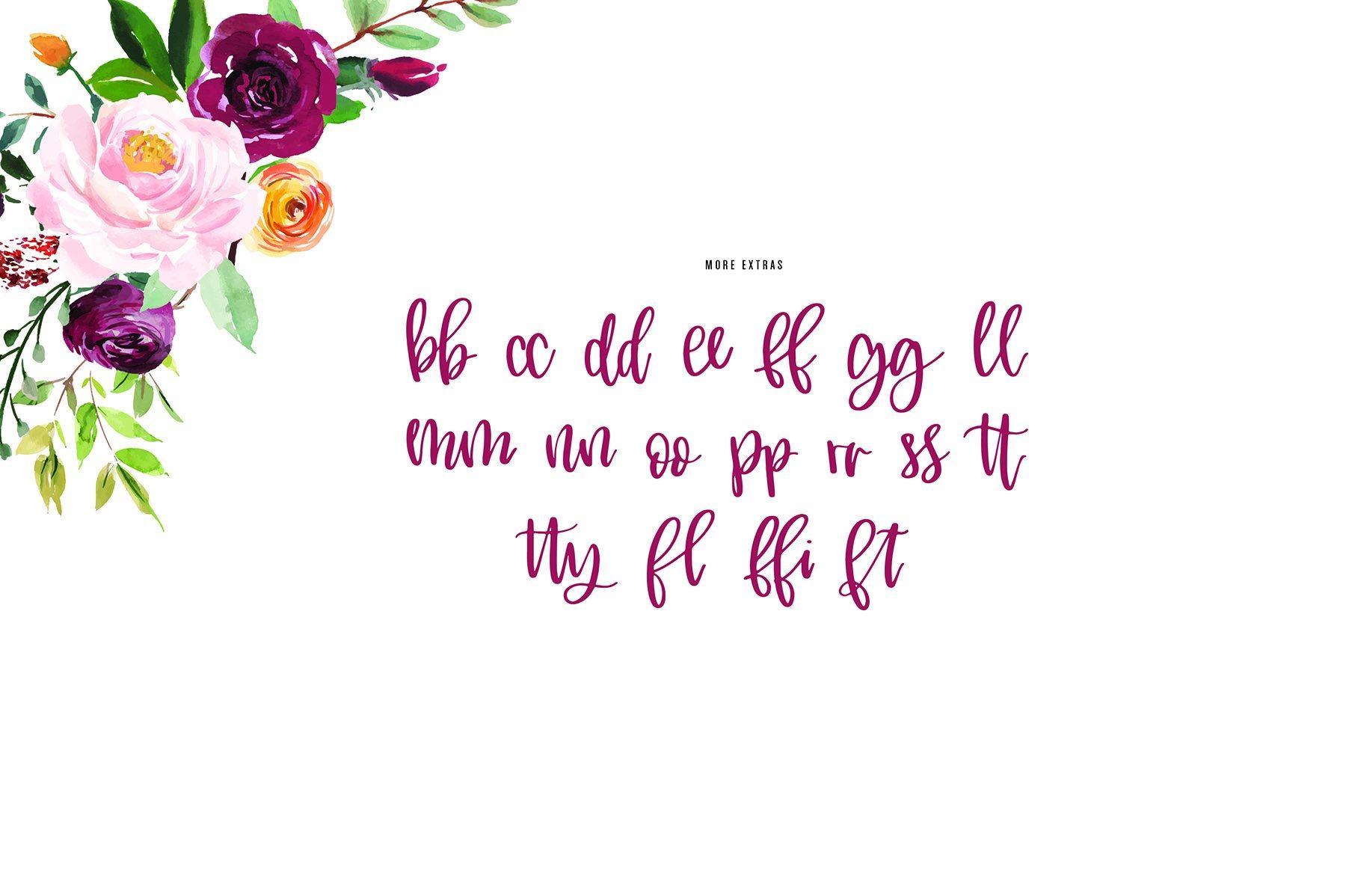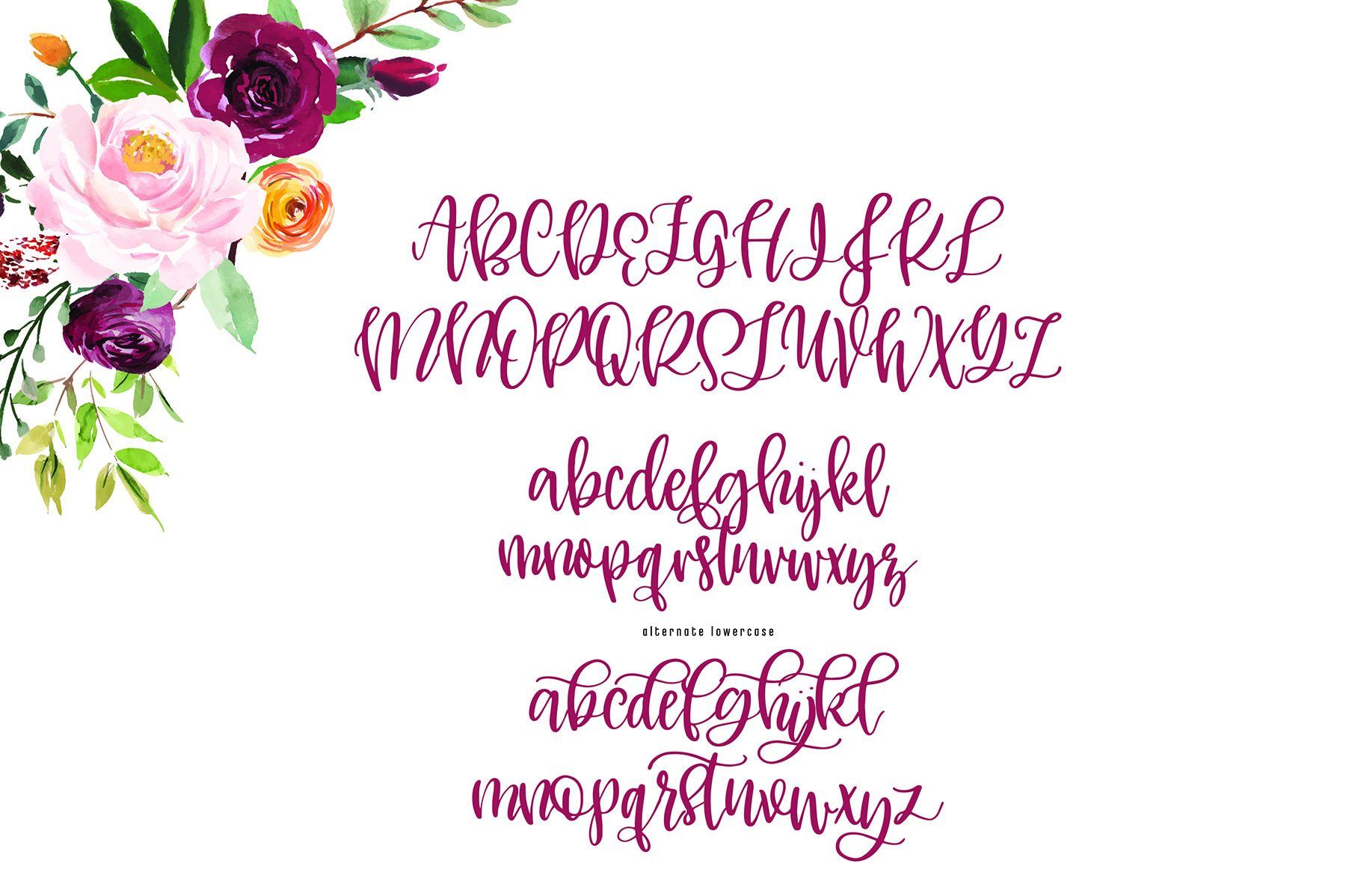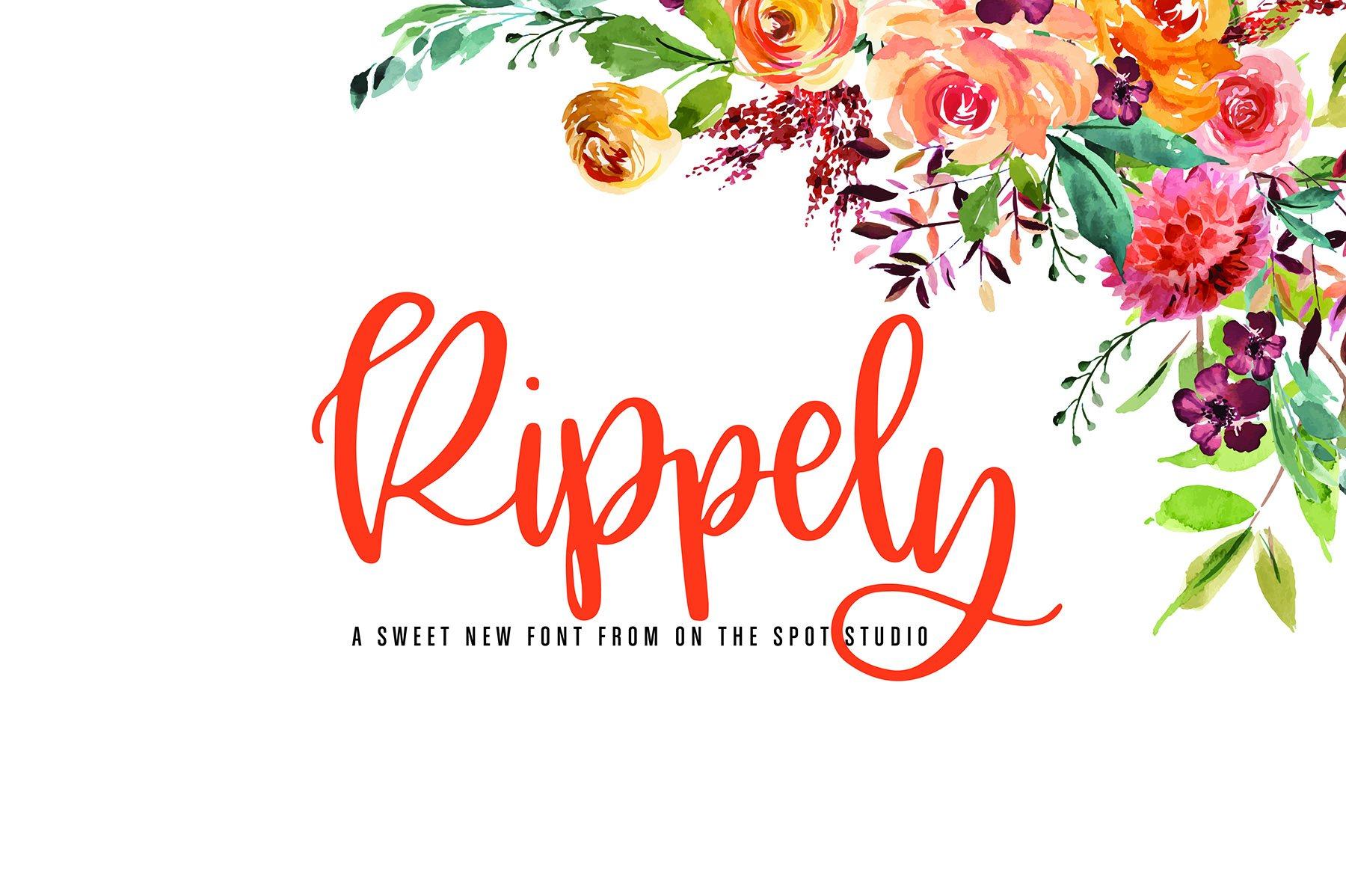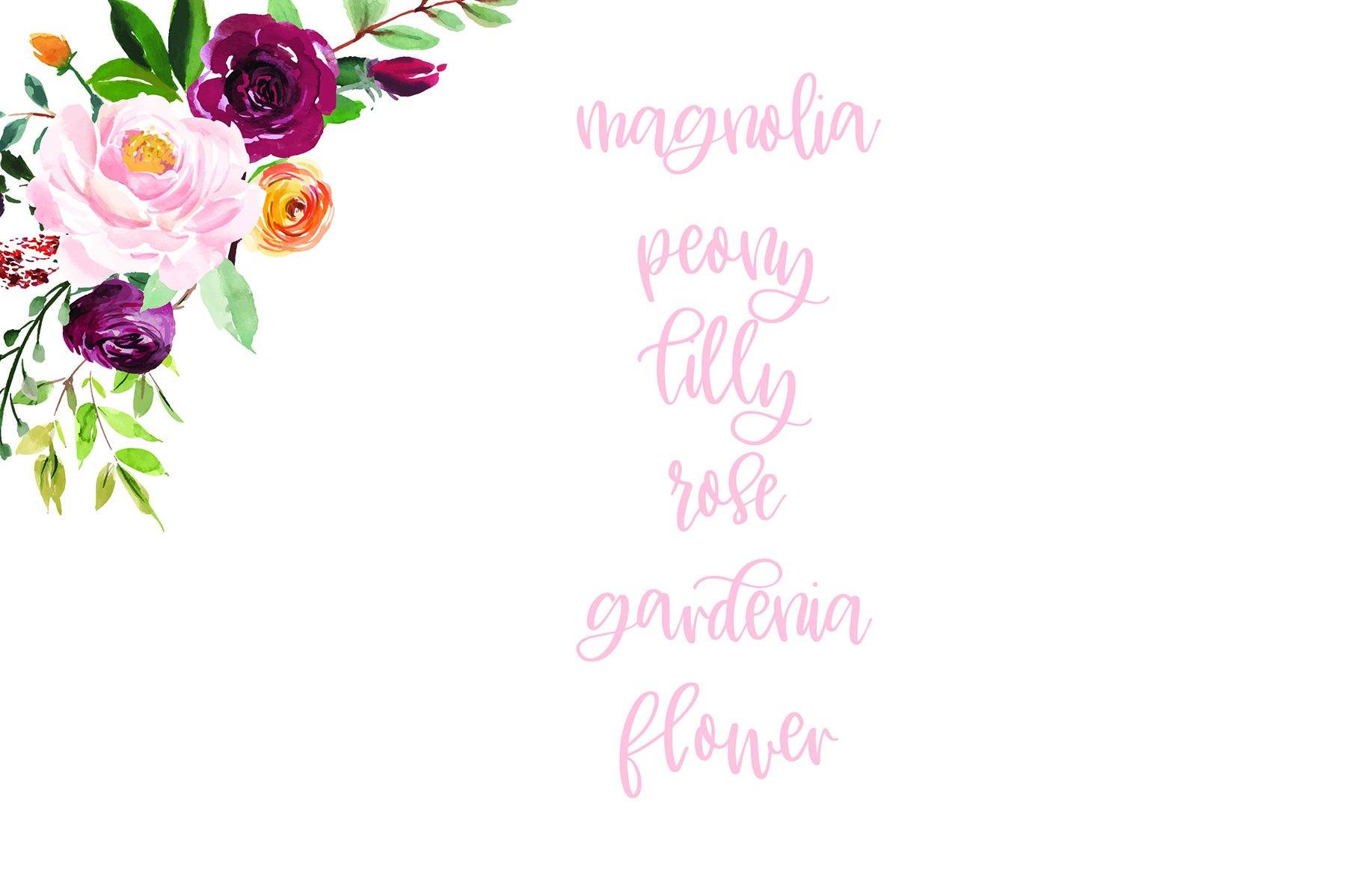
HomeScript FontsRippely Script Fonts Rippely FacebookXPinterestWhatsApp 1 of 5 ... ... ... ... ... About Rippely Meet Rippely! Super sweet and includes an alternate set of lowercase letters as well as alternate glyph combos! DOWNLOAD NOW People also explored Cutie Face Font Lestusen Font My Lovely Font Ainsley Blossom Font Yardstick Font Hello Winter Font Happymonday Font Fentura Font Beautiful Handmade Font 207 0 TagsRippely Previous articleOakerNext articleCalliah LEAVE A REPLY Cancel reply Comment: Please enter your comment! Name:* Please enter your name here Email:* You have entered an incorrect email address! Please enter your email address here Website: Save my name, email, and website in this browser for the next time I comment. Personal Use Free Rollayka Personal Use Free Read more about this font Lover Loves Personal Use Free Read more about this font Carved Wood Personal Use Free Read more about this font Nuku Nuku Personal Use Free Read more about this font BLOG To increase your work productivity, choose the most readable fonts. In today's fast-paced work environment, where digital communication and information consumption are integral to our daily routines, the choice of fonts can significantly impact... Exploring Font Trends Fonts That Capture the Spirit of New York City Modern Sans-Serif Fonts That Brands Love in 2025